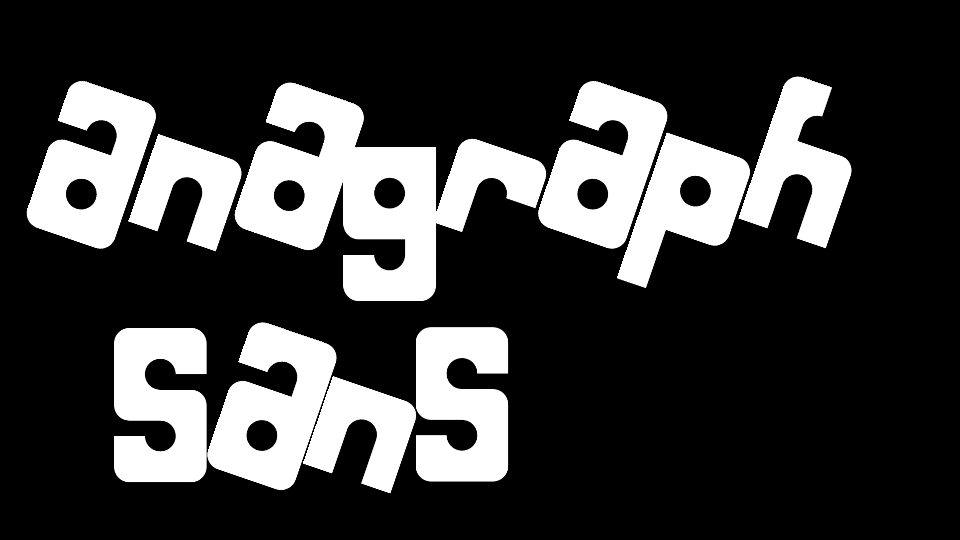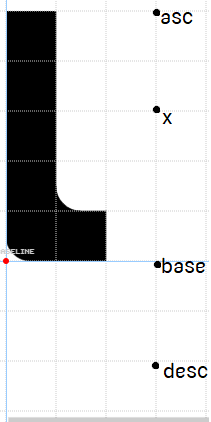
·you haven't updated the gif to make the "g" rotate
·you could make "E" a rotated "3"
·you could lower the lowercase "s" and "z"
·you could make the "F""f" rotationally symmetric, so that you coul lower "f" after
·you could make "L" a rotated "7", alternatively, you could make the "7" a rotated "t"
·you could make "N" the [sample], so that if you rotate it, it becomes "v"
·you could make the "O" 2 bricks higher, and use a lowered version of that in "0"
·you could lower "8" 2 bricks, and move the og 8 on "B"
·put a dot below "I" so that "I" is a rotated version of "i"
now that i think of it, you could add a tail to "l" and make the "1" a rotated & lowered version
aswell as removing the tail on "t" and makin the "+" sign a lowered version of "t"